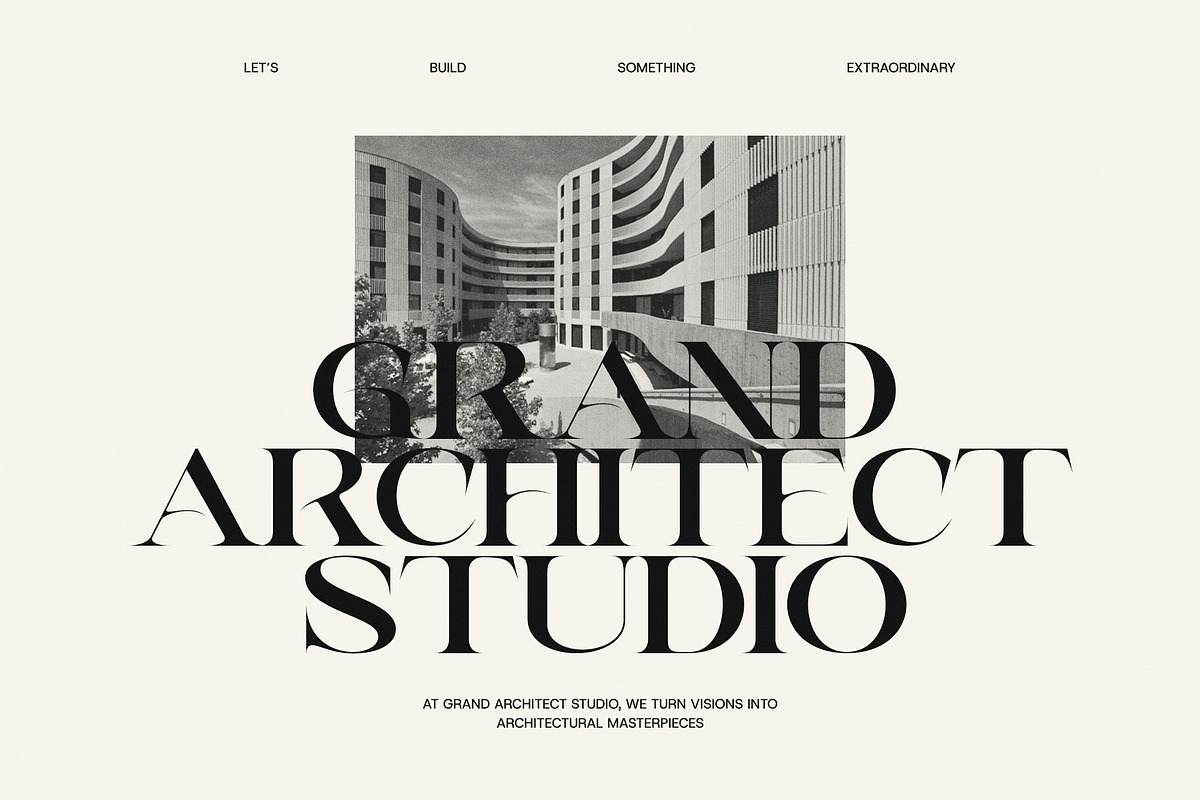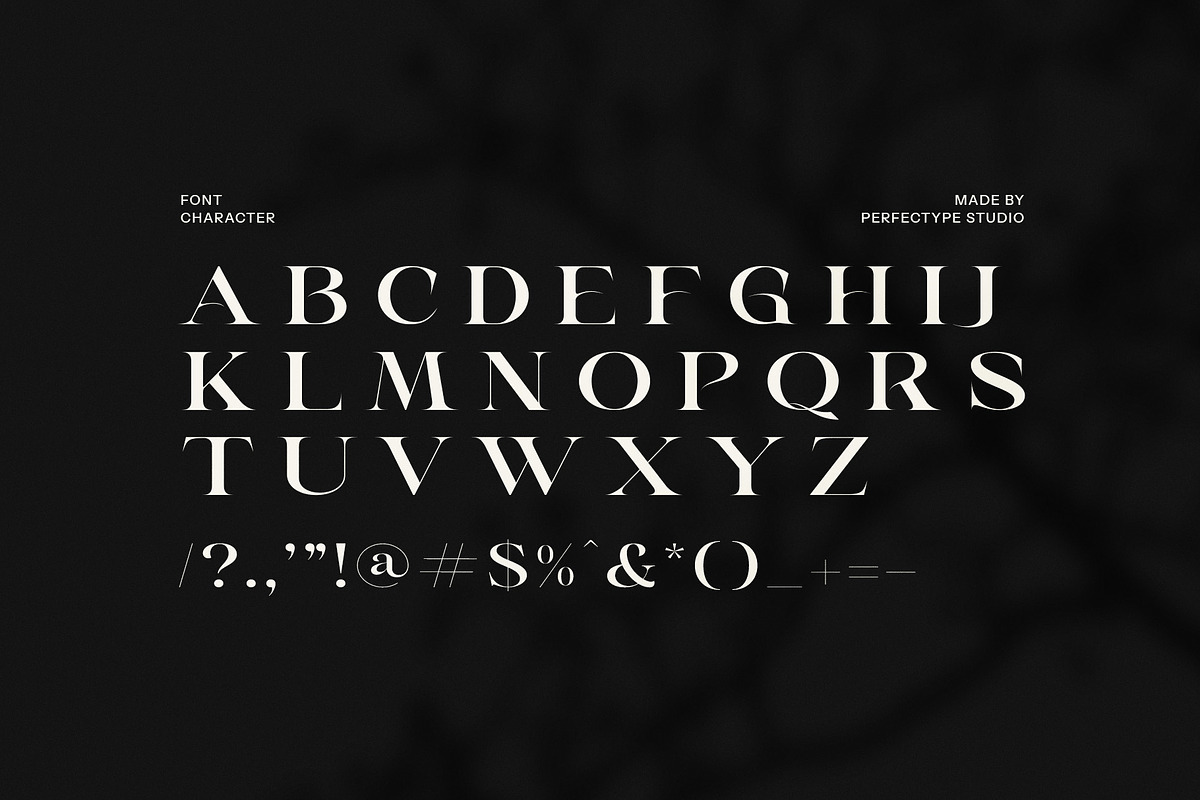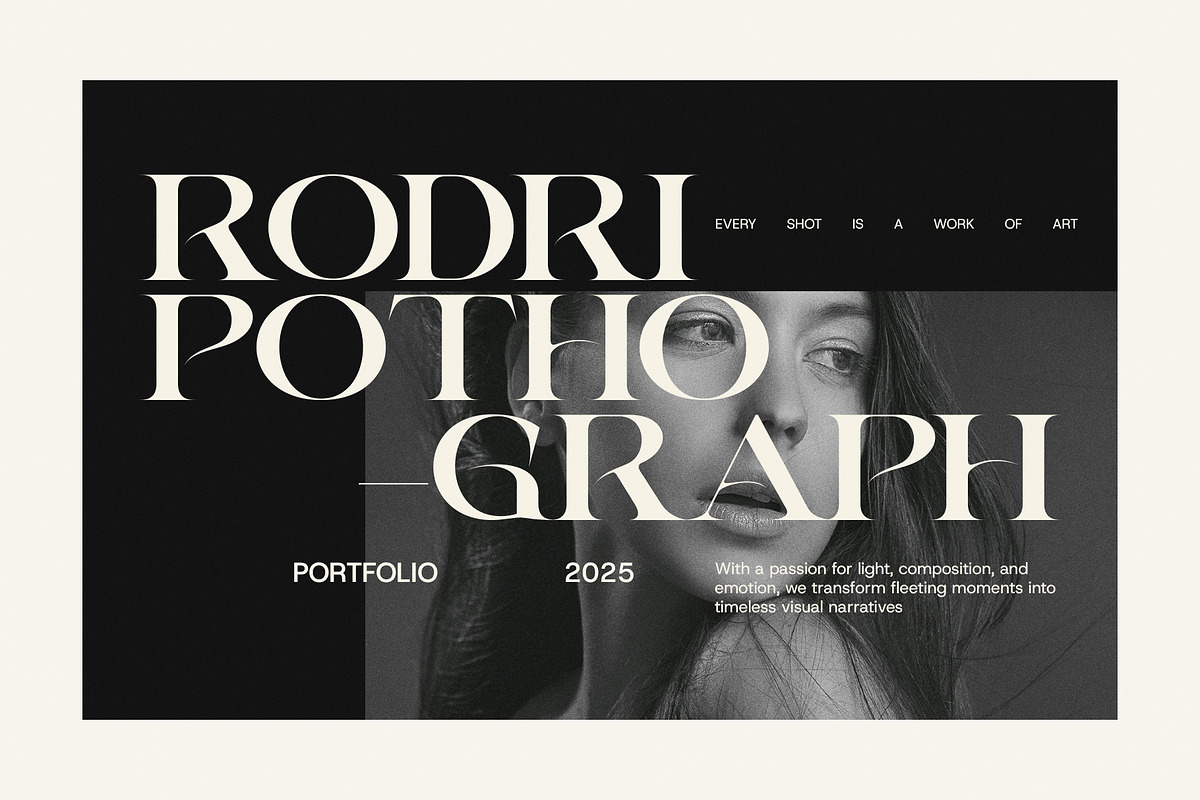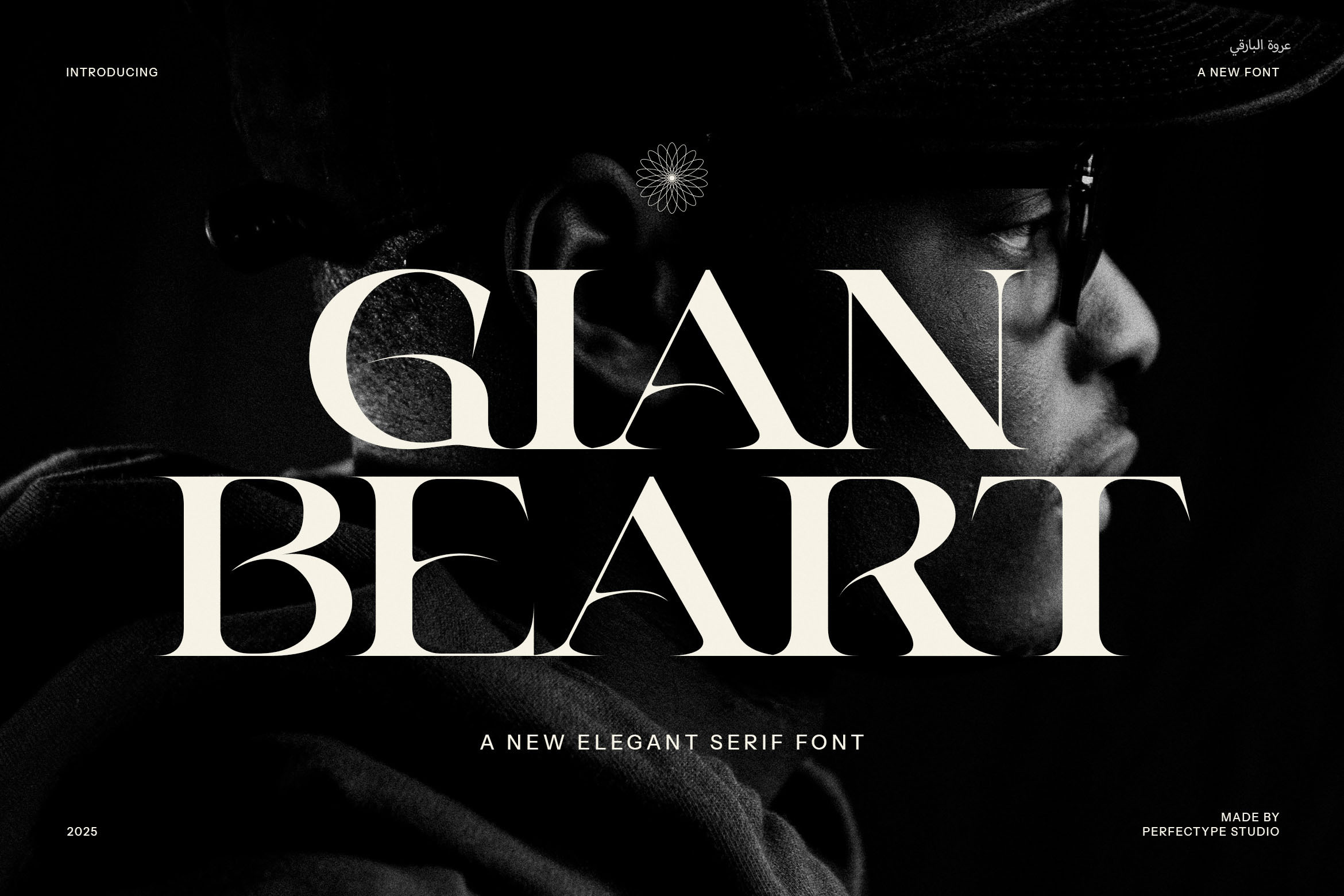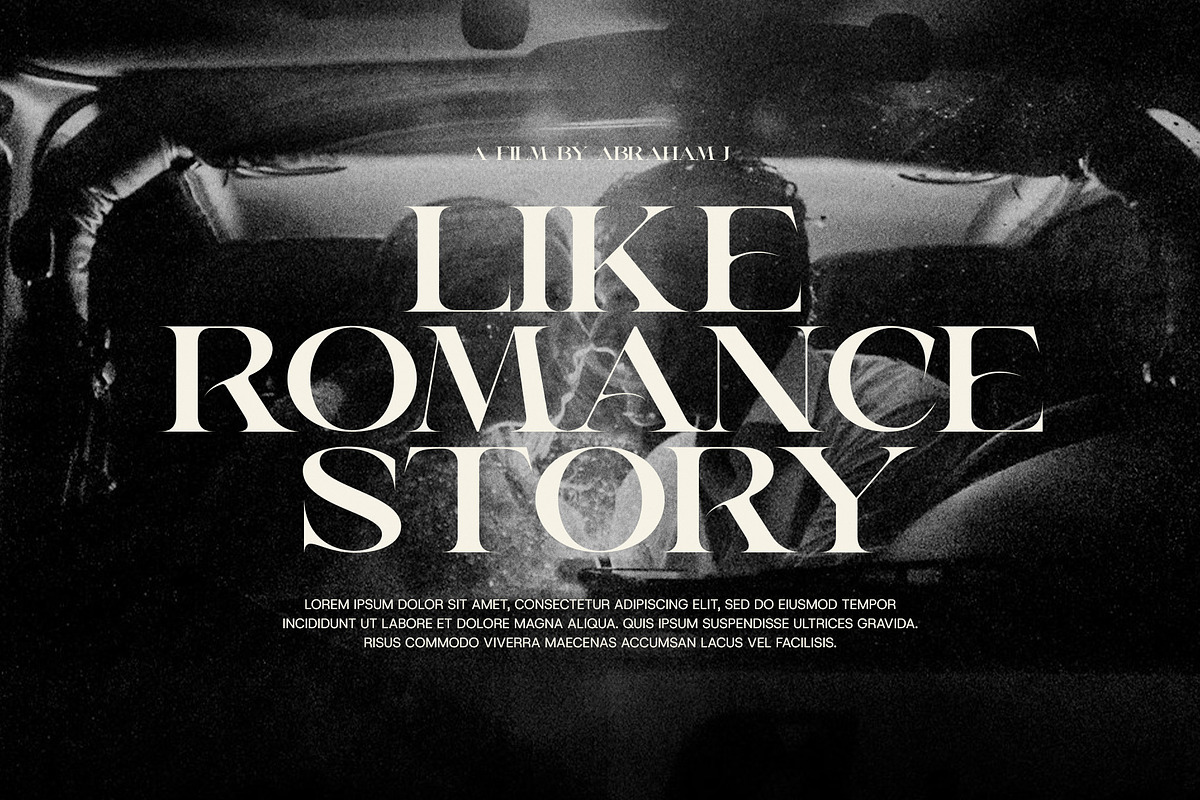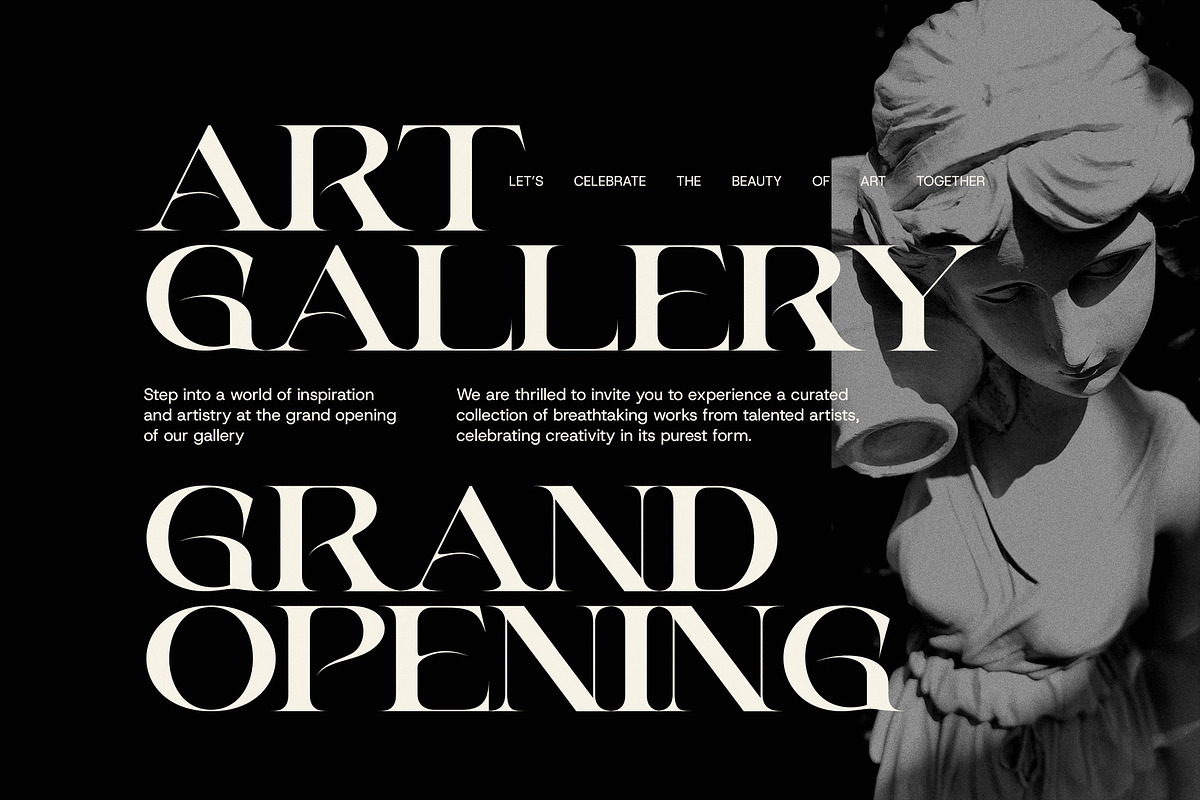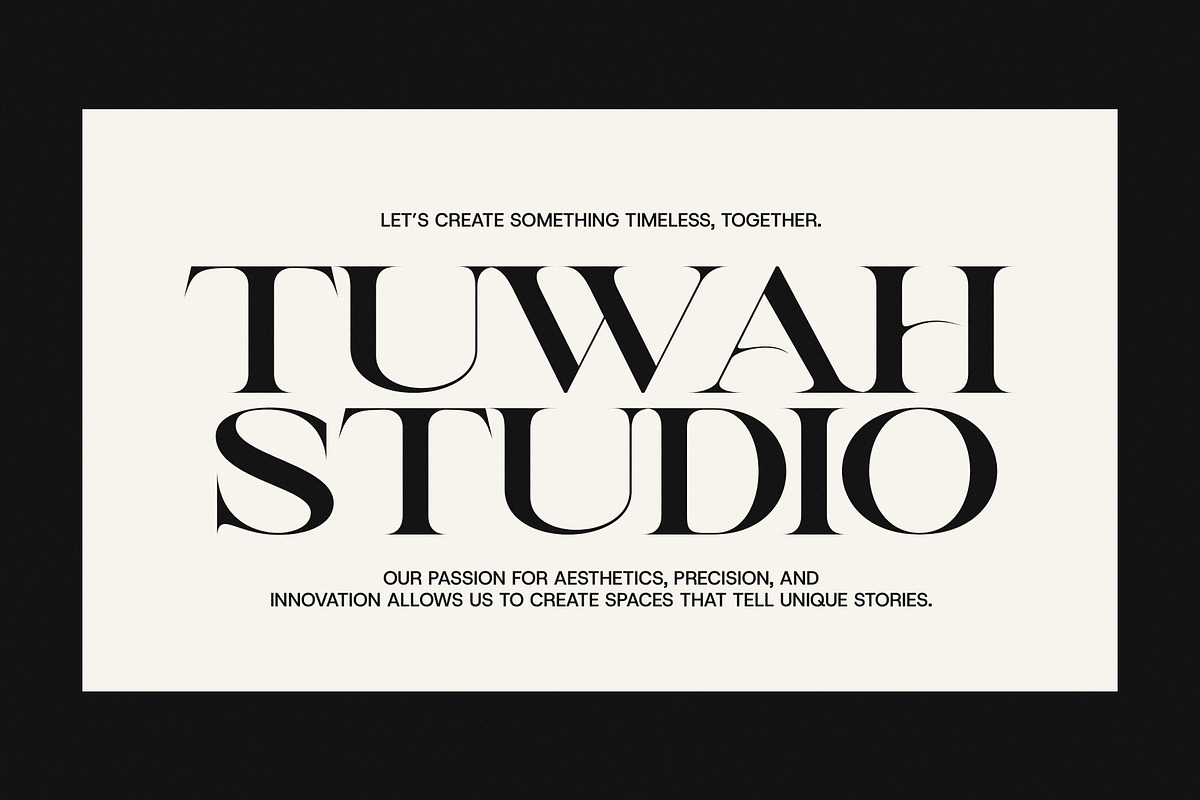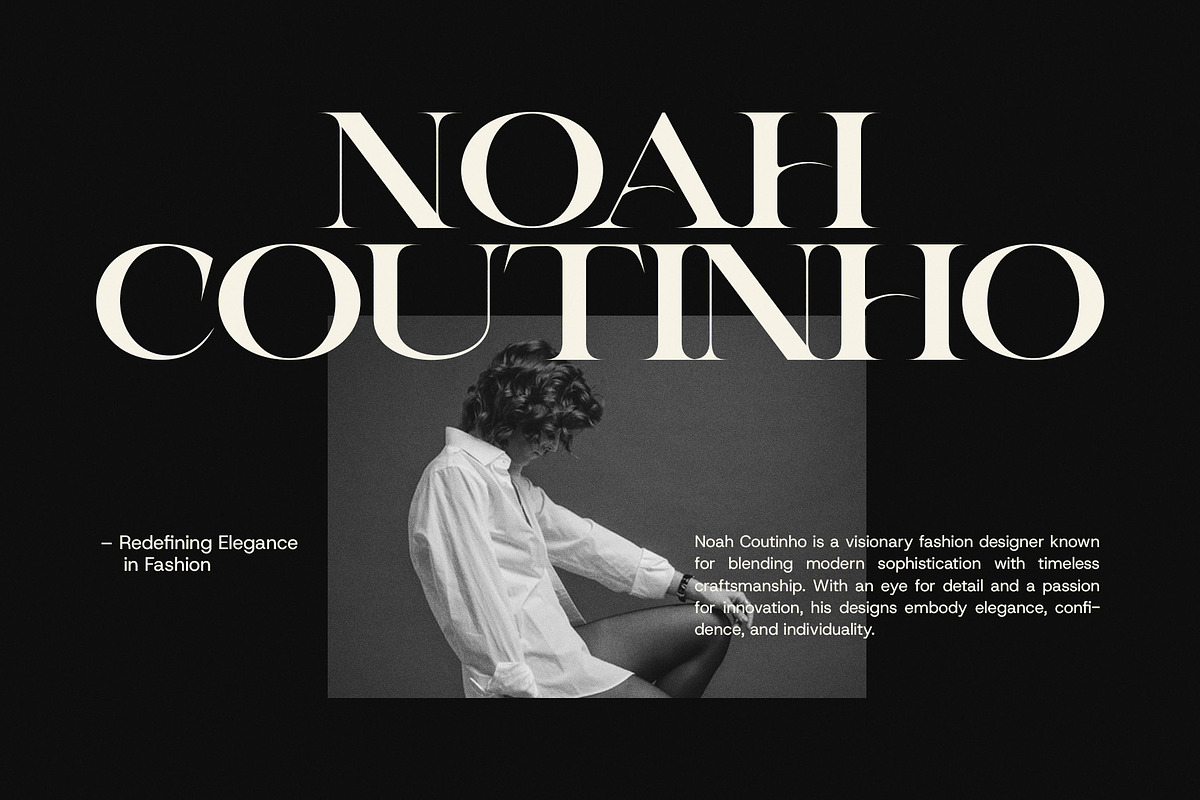
Gian Beart Elegant Serif Font
Beart Elegant Serif Font is a captivating modern serif typeface that exudes sophistication and charm. Designed with attention to detail, this font combines timeless elegance with contemporary flair, making it the perfect choice for various design projects. With its unique ligatures and alternate letterforms, Beart offers a distinct character, giving your designs a refined and polished look.
Ideal for luxury branding, upscale websites, high-end magazines, and product packaging, Beart Elegant Serif elevates any visual identity. Its smooth curves and sharp serifs create an impressive balance, adding a sense of class and readability to both large headlines and body text. Whether you're designing a boutique logo, creating stylish invitations, or working on advertisements for premium products, this font will capture the attention of your audience.
Beart is versatile, adaptable, and perfect for conveying a sense of elegance and modernity. Its clean, stylish appearance makes it suitable for a wide range of industries, including fashion, food, real estate, and more. The inclusion of alternate glyphs and ligatures provides additional flexibility, allowing you to create a more personalized, distinctive type treatment.
Designed with both beauty and functionality in mind, Beart Elegant Serif Font is an excellent choice for those looking to add a touch of luxury and refinement to their designs. Whether for print or digital, it promises to elevate your creative projects to new heights with its elegant appeal and modern sensibility.